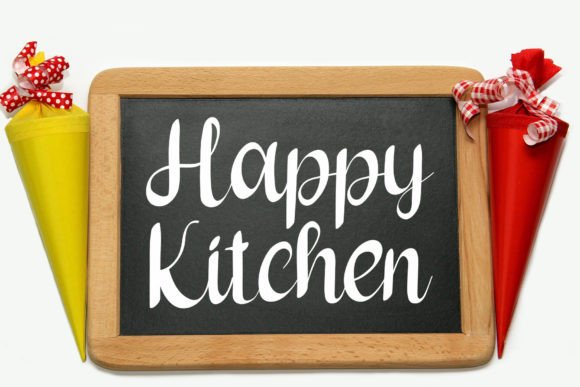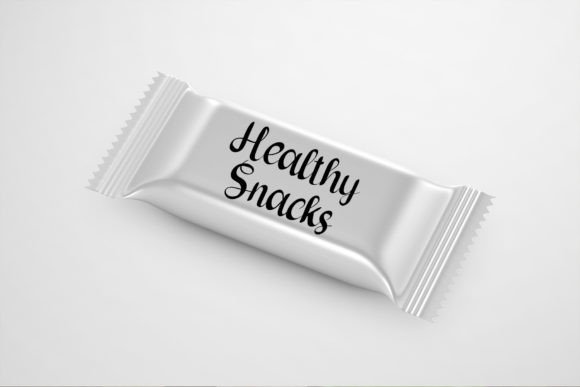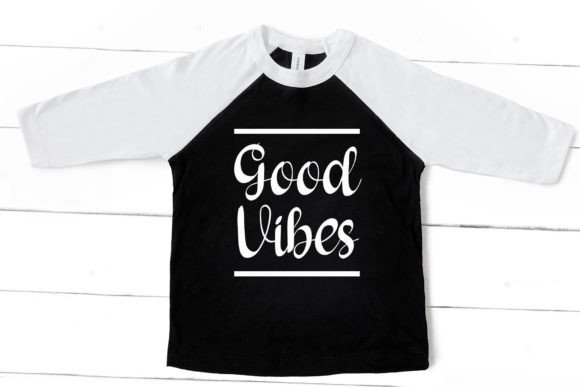
About Barber Font Download
The Barber Font Download is a unique and elegant handwritten script carefully designed to bring beauty and sophistication to your creative projects. With its handcrafted strokes and professional detailing, Barber offers a balance of charm and readability. Whether you’re creating invitations, posters, or branding materials, this font ensures your work looks polished and stylish.
A Handcrafted Script with Elegant Style
The Barber script font blends the artistry of calligraphy with the clarity of modern design. As a result, it feels refined, professional, and versatile. Furthermore, it adapts seamlessly to both formal stationery and playful creative designs, making it a valuable tool for any designer.
Handwritten fonts always add intimacy and charm. The Barber Font is perfect for wedding invitations, birthday cards, thank you notes, and festive greetings. Because of its handcrafted character, every card feels personal and elegant. In addition, it ensures that your stationery creates a lasting impact.
Branding and Logo Design with Barber Font
Typography plays a vital role in shaping a brand’s identity. The Barber handwritten font is excellent for boutique logos, packaging, and promotional visuals. Its elegant handwritten style makes businesses appear creative yet professional. Therefore, it is especially effective for lifestyle, fashion, and event branding.
Posters, Titles, and Creative Displays
The Barber Font Download also shines in posters, magazines, banners, and book covers. It remains clear and expressive at all sizes while adding handwritten charm. Consequently, it is a reliable option for designers who value both creativity and professionalism.
Digital Design and School Projects
In today’s digital age, fonts need to be flexible across platforms. The Barber typeface integrates effortlessly into Instagram posts, Pinterest designs, YouTube thumbnails, and blogs. Because of its unique handmade look, it also works wonderfully for school projects and creative assignments, adding elegance to presentations.
Why Designers Choose Barber Typeface
Designers appreciate fonts that combine artistic detail with usability. The Barber handwritten script maintains its elegant handcrafted personality while being clear and easy to read. This makes it useful for hobbyists, professionals, and students alike. Moreover, its timeless handwritten form ensures it remains relevant for future projects.
Add Elegant Handcrafted Beauty to Your Projects Today
If you’re looking for a handwritten script that feels elegant, versatile, and timeless, the Barber Font Download is the perfect choice. From greeting cards and invitations to posters, branding, and digital projects, it enriches every design with stylish handwritten charm. Finally, download Barber today and let your work shine with handcrafted elegance.